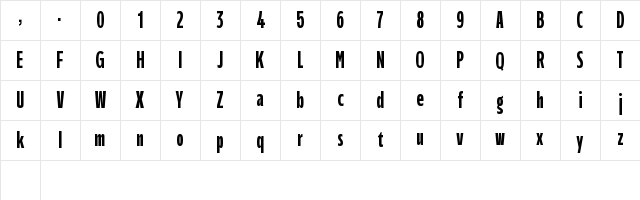
Complete Performa Cm Medium Regular glyph index. Displaying only characters natively supported by Performa Cm Medium Regular font.
Performa Cm Medium is a composed and adaptable typeface that performs quietly and consistently across a wide range of design contexts.